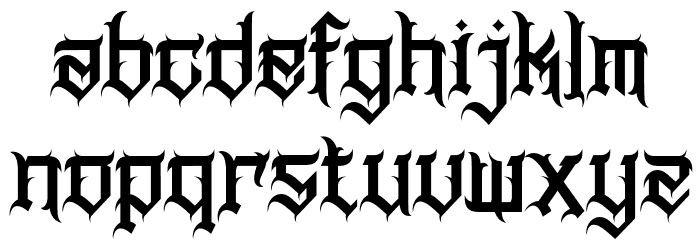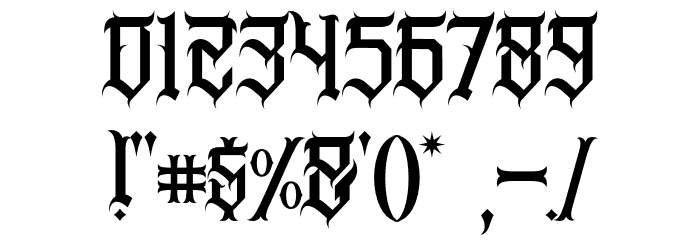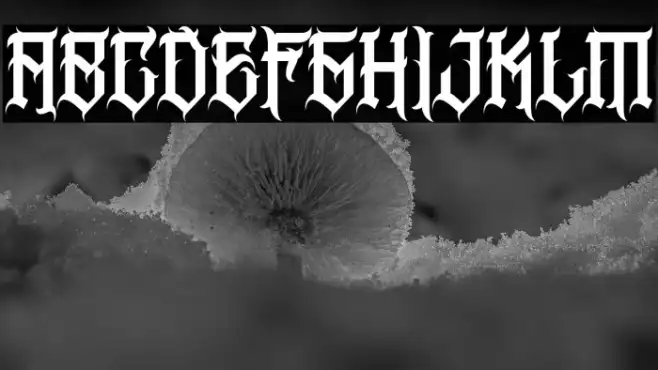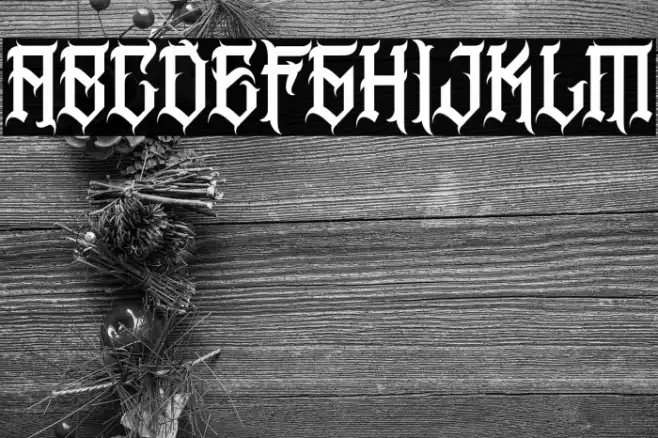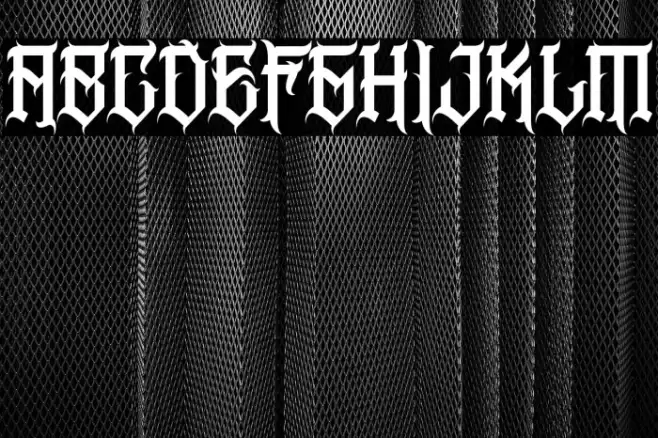
BWSNORTHLAND Font
This font exhibits a bold and striking blackletter style, characterized by its sharp, angular lines and intricate detailing. The uppercase letters are particularly ornate, with pointed serifs and dramatic flourishes that evoke a sense of historical elegance. The lowercase letters maintain this intricate design, offering a cohesive look throughout the alphabet. Numbers and special characters are equally stylized, ensuring consistency across all text elements. This font's high contrast between thick and thin strokes adds to its dramatic appearance, making it ideal for impactful visual statements.
A bold, blackletter font with sharp, angular lines and high contrast.
- Font: BWSNORTHLAND
- Proposed Projects: Ideal for projects requiring a historical or gothic aesthetic, such as book covers, posters, or branding for themed events.
- Category: Blackletter
- Overall Style: Vintage